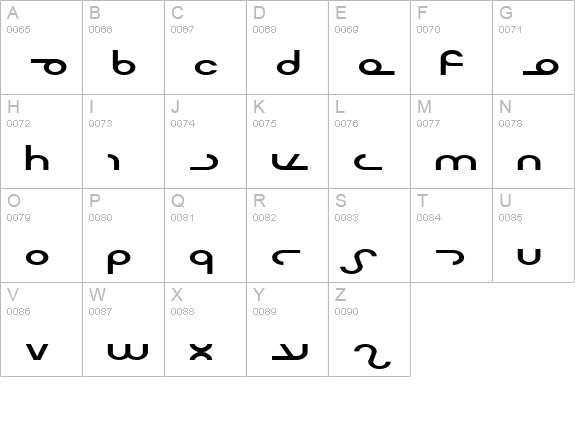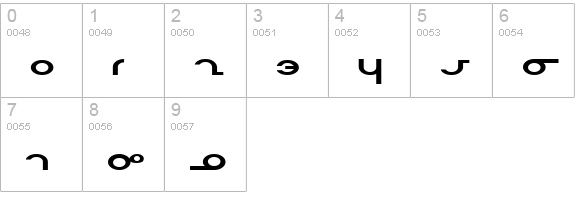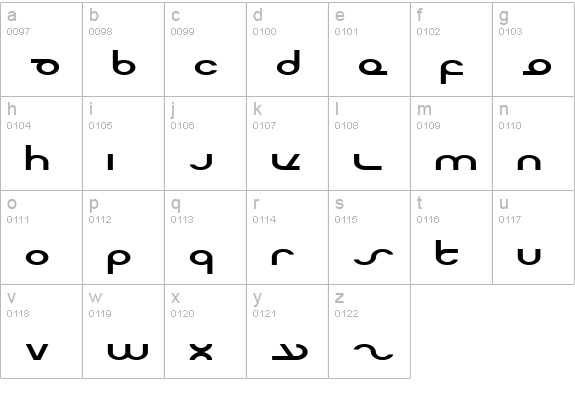
Masterdom Exp Font Details
Masterdom Exp is a modern and stylish font that exudes sophistication and elegance. With its sleek lines and clean design, this font is perfect for adding a touch of class to any project. Whether you're designing a logo, creating a striking headline, or crafting a standout poster, Masterdom Exp is sure to make a statement. What's even better is that Masterdom Exp is completely free to download at FontsMarket.com. This means you can easily access this high-quality font without any cost, making it a fantastic option for both personal and commercial use. Don't miss out on the opportunity to elevate your designs with Masterdom Exp today!